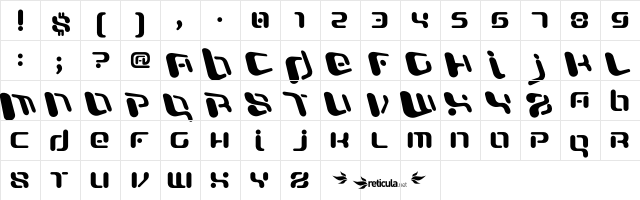
Officer X Regular
| Foundry | ViNZ |
| Designer | ViNZ |
Design Context for Officer X Typeface
Officer X is a composed and adaptable typeface that performs quietly and consistently across a wide range of design contexts.